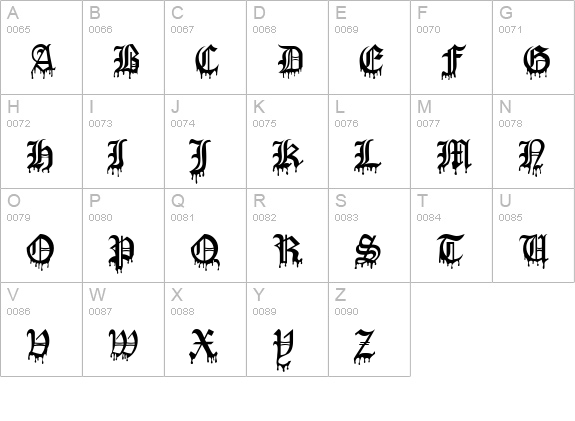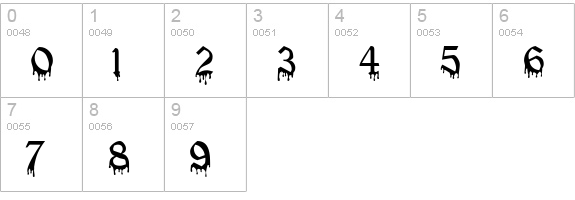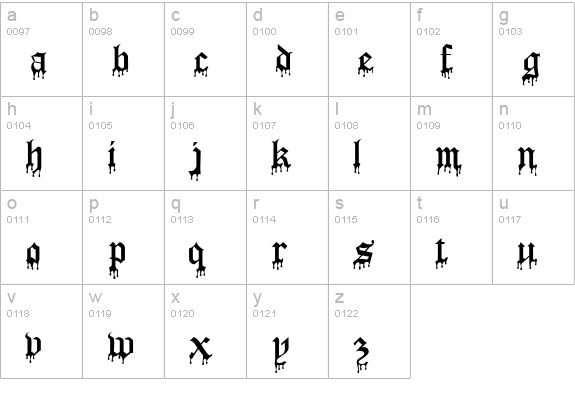
Introducing the captivating and mesmerizing Blood Of Dracula font, a typeface that embodies the dark and mysterious world of vampires and gothic literature. This unique font combines elegance with an eerie aura, making it perfect for Halloween-themed designs, horror movie posters, book covers, and much more. Blood Of Dracula font features intricate letterforms with sharp edges and delicate curves, creating an unforgettable visual impact. Its bold and dramatic appearance instantly transports the viewer into a world of shadows and secrets, evoking a sense of both danger and allure. Crafted with utmost attention to detail, this font offers a wide range of uppercase and lowercase characters, numerals, punctuation marks, and special symbols. Each glyph is meticulously designed to maintain a consistent and hauntingly beautiful look throughout your design projects. One of the most remarkable aspects of Blood Of Dracula font is that it is freely available to download at FontsMarket.com. This means that you can easily access this stunning font and incorporate it into your projects without any hassle. Whether you're a professional designer or an enthusiastic hobbyist, the availability of Blood Of Dracula font for free ensures that you can enhance your creations with a touch of dark allure and sophistication. Unleash your creativity and let Blood Of Dracula font breathe life into your designs. Whether you're designing a gothic-themed wedding invitation, a spooky flyer for a Halloween party, or a chilling poster for a horror film, this font will undoubtedly make a lasting impression. Embrace the darkness and download the Blood Of Dracula font from FontsMarket.com today. With its striking appearance and freely available nature, this font is a must-have for anyone seeking to add an element of mystery and sophistication to their design projects.